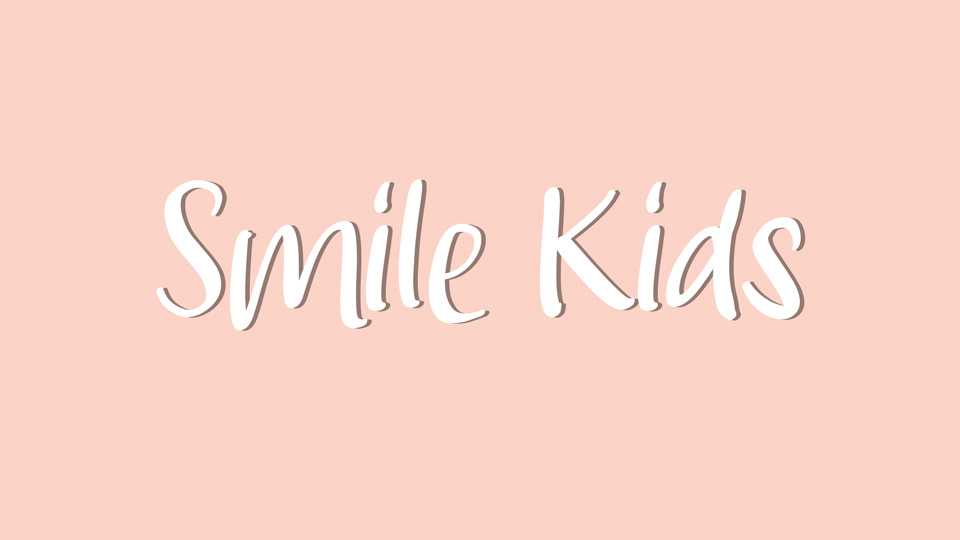
Download Smile Kids font, a casual and simple typeface perfect for kids books, notes and comics. Smile Kids font is perfect for any projects to add a bit of personality but without taking away from the overall composition.